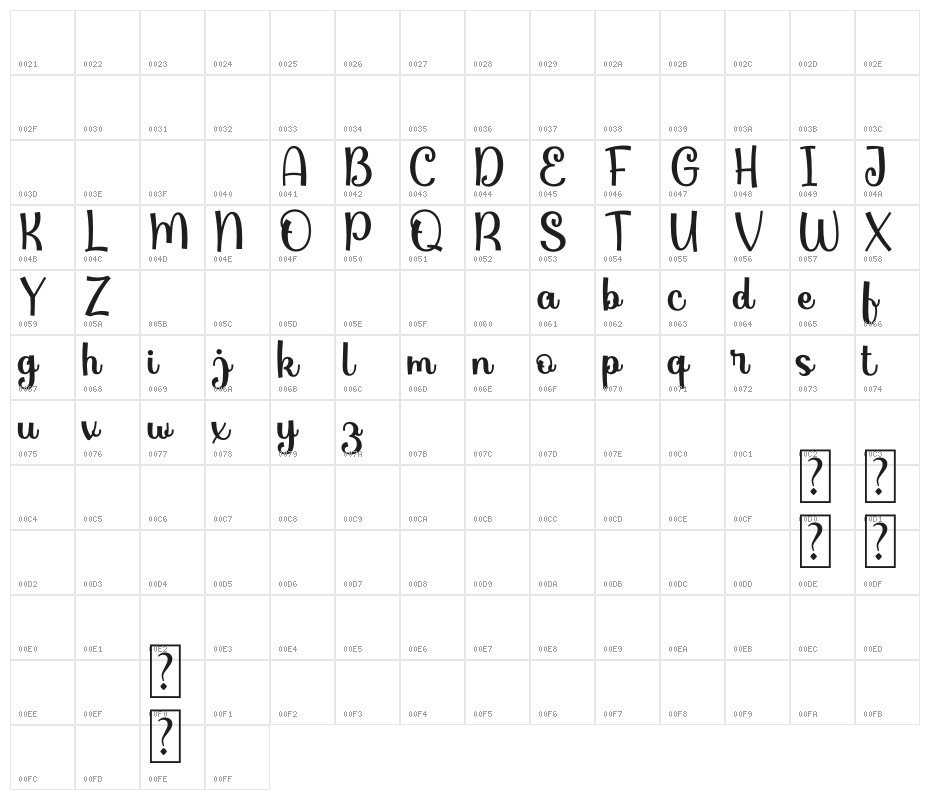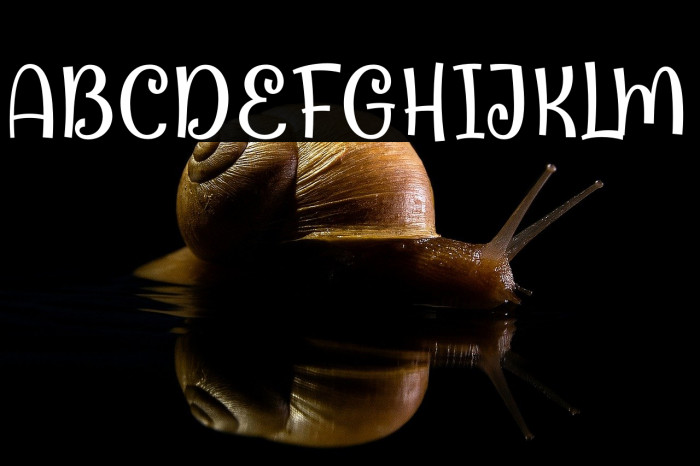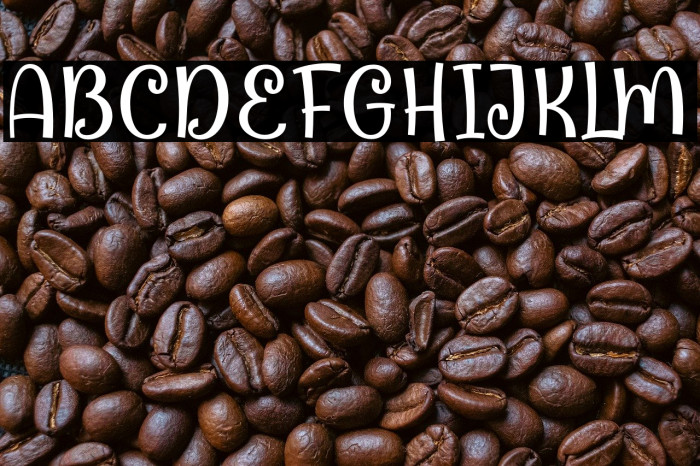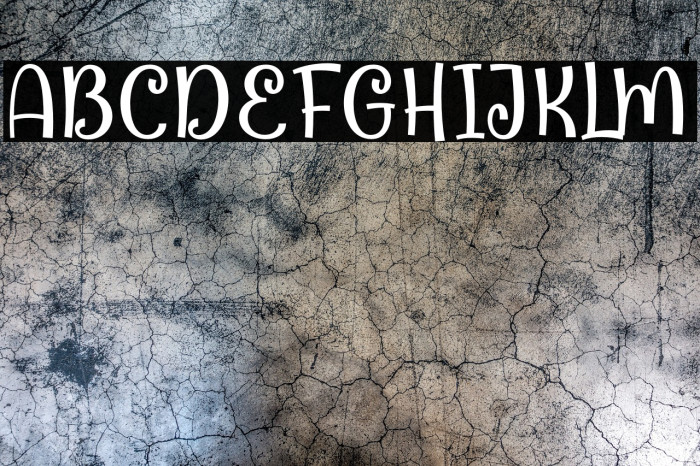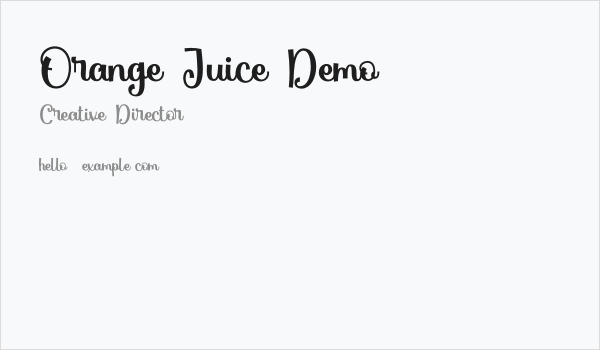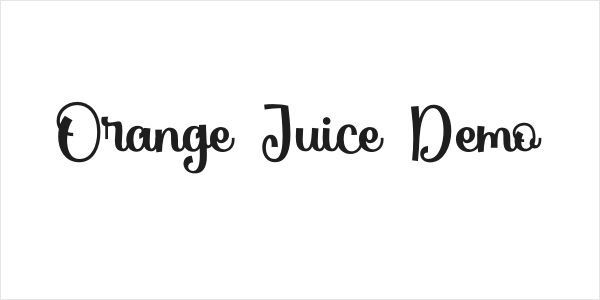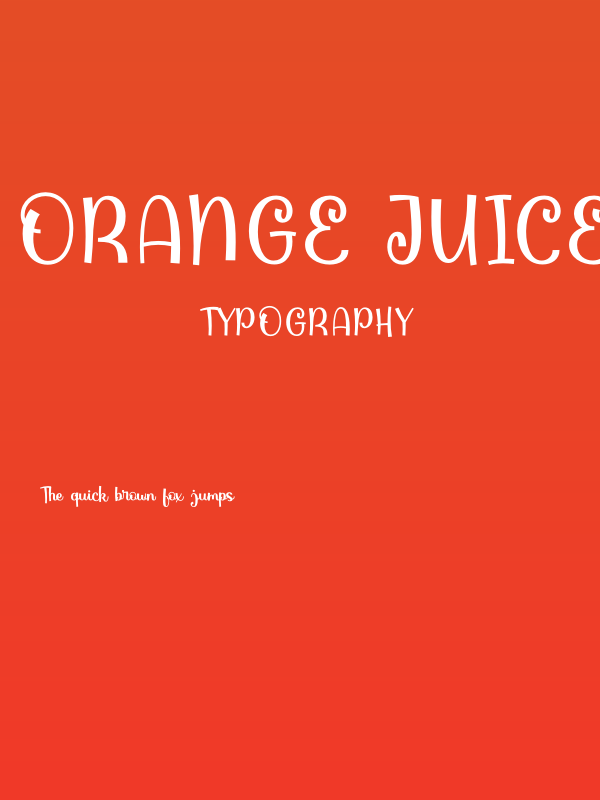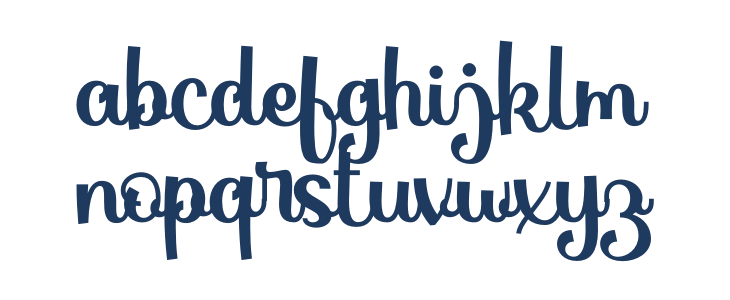
Orange Juice Demo Font
Orange Juice Demo Description
This playful and energetic font features a bold and whimsical style, characterized by its thick, rounded strokes and lively curves. The uppercase letters exhibit a unique blend of straight lines and gentle arcs, creating a sense of movement and fun. The lowercase letters continue this theme with a more pronounced cursive influence, adding a touch of elegance to the overall design. The font's distinctive personality is further enhanced by its slightly irregular character shapes, which contribute to its informal and friendly appearance. This font is perfect for projects that require a touch of creativity and joy.